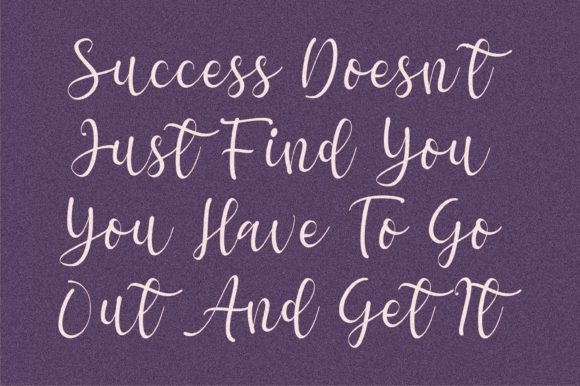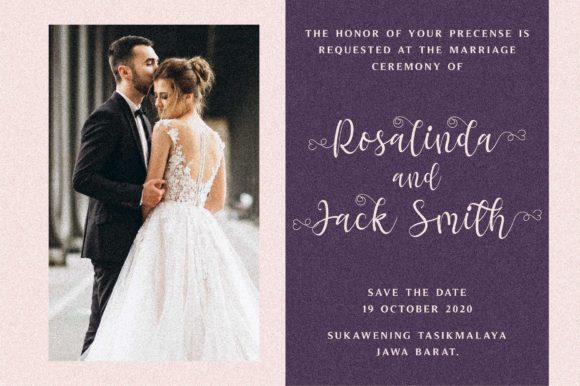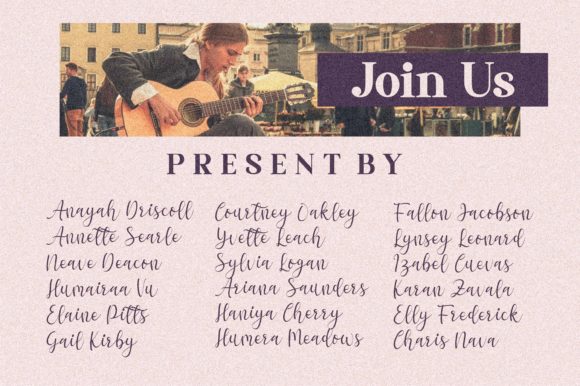
Introduction to Hello Chamelia Font
Have you ever found yourself sitting in front of your computer, staring at a blank canvas, searching for the perfect font to bring your creative project to life? You’ve tried countless options, but nothing seems to capture the essence of your design vision. That’s where the Hello Chamelia Font comes in – a beautiful, handwritten font that’s sure to add a touch of warmth and personality to any project.
With its elegant, cursive lines and subtle flair, the Hello Chamelia Font is the perfect choice for designers looking to add a high-quality, charming element to their work. Whether you’re creating a logo, a social media graphic, or a website header, this font is sure to make a lasting impression. Plus, with its transparent background, you can easily overlay it on top of any image or color, giving you complete creative control.
Key Features of Hello Chamelia Font
- High-quality design: The Hello Chamelia Font is a premium design resource, perfect for creative projects that require a touch of elegance and sophistication.
- Resolution: The font is designed to be scalable, making it suitable for use in high-resolution designs and print materials.
- Unique characteristics: The Hello Chamelia Font features a unique, hand-drawn style that sets it apart from other fonts, adding a touch of personality to any creative project.
Honest Review: Hello Chamelia Font
As a designer, I’m always on the lookout for high-quality design resources to elevate my creative projects. The Hello Chamelia Font is one such find that caught my attention. I downloaded it for free, and I must say it’s been a great addition to my design toolkit.
Here are some things that work well about this font:
- ✨ High-quality typography: The Hello Chamelia Font boasts clean and crisp lines, making it perfect for various design applications.
- ✨ Versatility: It’s suitable for both digital and print projects, giving me the flexibility to use it wherever I need it.
- ✨ Transparent background: This feature is particularly useful when working with layered designs or backgrounds.
- ⚠️ Limited font sizes: The font seems to be designed with a specific size range in mind, which might limit its use in certain situations.
- ⚠️ Not ideal for bold text: While it’s great for body text, I found that it doesn’t quite cut it for bold or headline text.
Overall, I’m quite impressed with the Hello Chamelia Font. It’s a solid design resource that I’d recommend to fellow designers looking for a high-quality, free download. Just be aware of its limitations, and you’ll be good to go.
The Hello Chamelia Font is a one-of-a-kind design resource that features a transparent background and a distinctive, hand-drawn style. It’s perfect for designers who want to add a touch of whimsy and personality to their designs.
Q: Can I customize the Hello Chamelia Font to fit my design needs?
Yes, the Hello Chamelia Font is highly customizable and can be used in a variety of design applications, including logos, branding, and digital graphics. You can also use it in conjunction with other design resources to create a unique and eye-catching design.